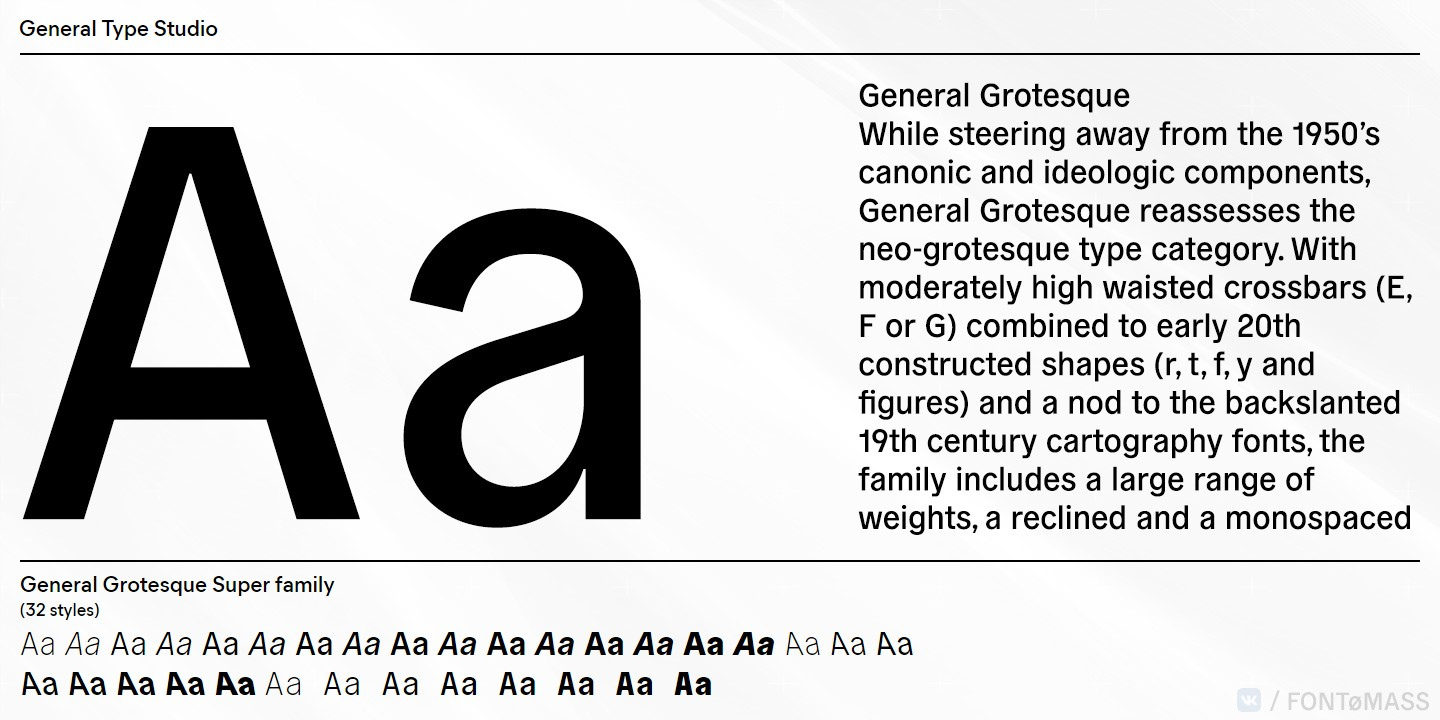
General Grotesque Font
General Grotesque Font excels in corporate identity systems, modern architectural presentations, editorial magazine layouts, professional business communications, clean web interfaces, minimalist branding projects, technical documentation, contemporary annual reports, institutional signage, and versatile design applications requiring timeless typographic reliability and universal appeal.
What makes General Grotesque Font exciting is its perfect embodiment of classic grotesque typography principles while maintaining contemporary relevance and exceptional versatility across all design contexts. This foundational typeface features neutral, well-balanced letterforms with optimal proportions and spacing that ensure maximum readability without imposing stylistic personality, making it the ideal choice for projects requiring dependable, professional typography that never distracts from content. The font's universal character and technical excellence make it essential for designers seeking reliable, adaptable typography that performs consistently across diverse applications and audiences.
General Grotesque Font belongs to the neo-grotesque sans-serif font family, specifically engineered to provide comprehensive typographic solutions for professional design applications. This font family typically includes thin, light, regular, medium, bold, and black weights with corresponding italic styles, providing designers with extensive typographic flexibility for complex layout hierarchies and comprehensive brand identity systems.
Perfect for corporate designers, editorial art directors, brand consultants, and design professionals across all industries, this typeface performs exceptionally in body text, headlines, and interface applications. The font's universal appeal extends across print publications, digital platforms, environmental graphics, and comprehensive branding systems where consistent performance and broad compatibility are paramount.
The expertly crafted letterforms maintain superior legibility and neutral character across all sizes and applications. From detailed technical manuals to large-scale corporate environmental graphics, General Grotesque Font delivers consistent performance while preserving its distinctive professional character and universal accessibility.
Modern designers value how this font provides reliable typographic foundation without stylistic limitations, creating designs that feel both professionally authoritative and broadly accessible. Its comprehensive character set and technical features ensure seamless integration into complex international projects and multilingual corporate communications.